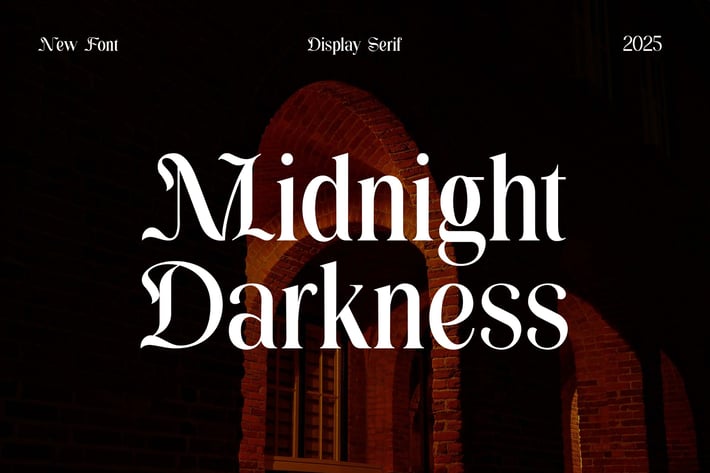
Midnight Darkness Display Serif Font
Introducing our new product the name is Midnight Darkness Display Serif Font. Midnight Darkness Display Serif Font that feels beautiful classy, elegant, and modern. This font is perfectly suited for a wide variety of projects, such as signature, stationery, logo, wedding, typography quotes, magazine or book covers, website headers, clothing, branding, packaging design, and more. Also, fashion-related branding or editorial design displays both masculine and feminine qualities.